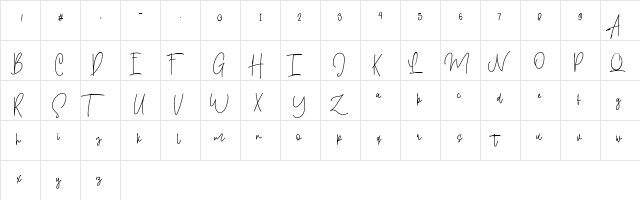
Shallamander Script
| Style | Script |
| Foundry | Crump Hand |
| Designer | Stafie Justprince |
Design Context for Shallamander Typeface
Shallamander flows with the natural rhythm of handwritten lettering, making it ideal for designs that call for warmth and personal expression.
Font Pairing: Combine Shallamander with a simple geometric sans for maximum contrast — the tension between flowing curves and clean structure is a classic typographic pairing.
Pro Tip: Use Shallamander for short runs of text — names, titles, or taglines. Extended body copy in script faces tires the eye quickly.